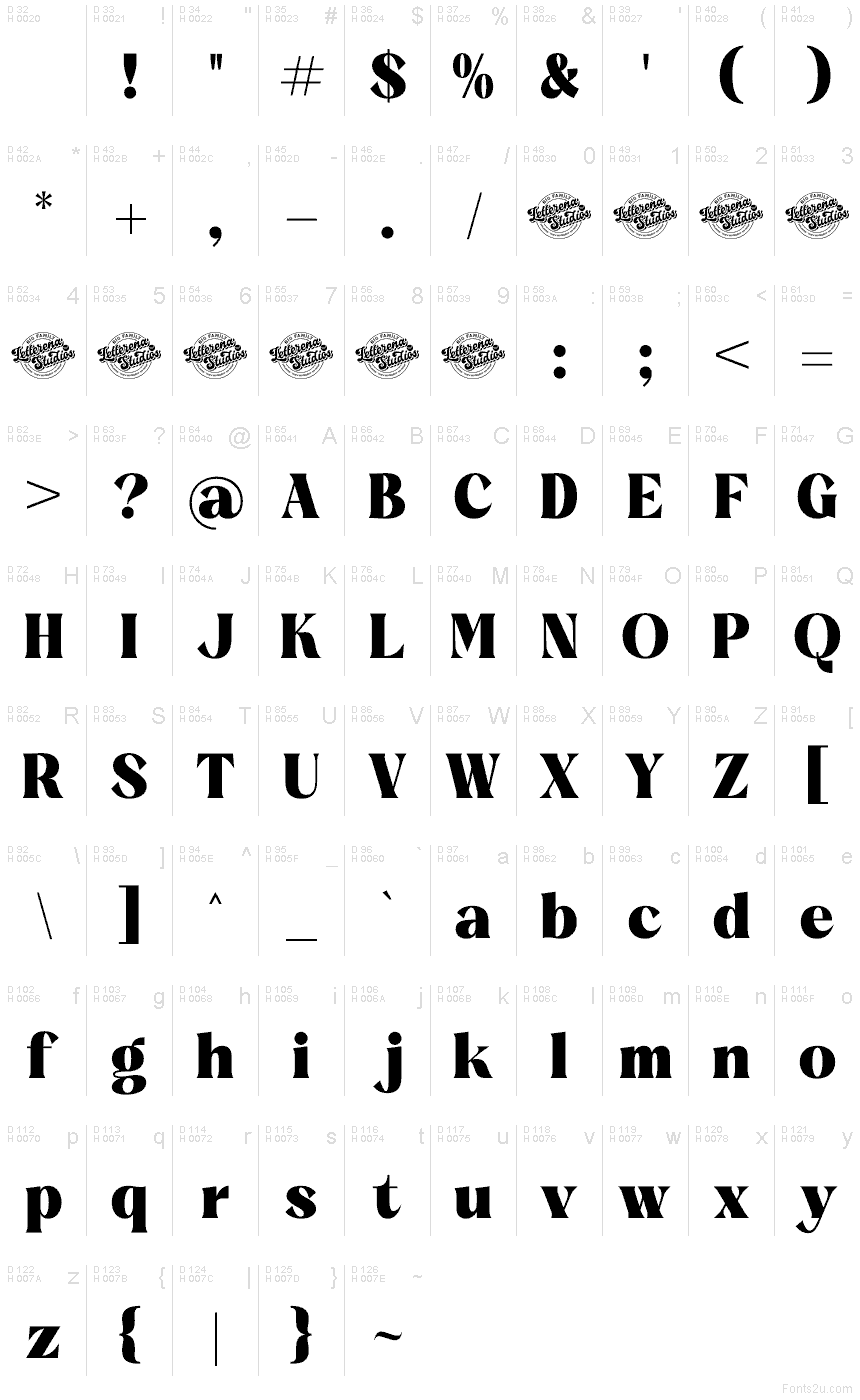
Beatnik Garden DEMO VERSION
Beatnik Garden font by Letterena Studios is a free retro serif typeface. Its chunky, inky letterforms swell into sculpted curves, then snap to crisp wedge-like serifs, giving every word a jazzy, poster-born swagger. Tight rhythm and confident weight pull the eye instantly, while the slightly compact proportions keep headlines feeling punchy rather than bloated.
Using Beatnik Garden, you’ll get standout results for posters, album art, boutique branding, coffee packaging, editorial titles, event flyers, and social graphics. Set it big and give it a touch of extra letterspacing to let those bold shapes breathe; pair with a light geometric sans for body copy to keep the message clear. This free font brings instant character without getting fussy.